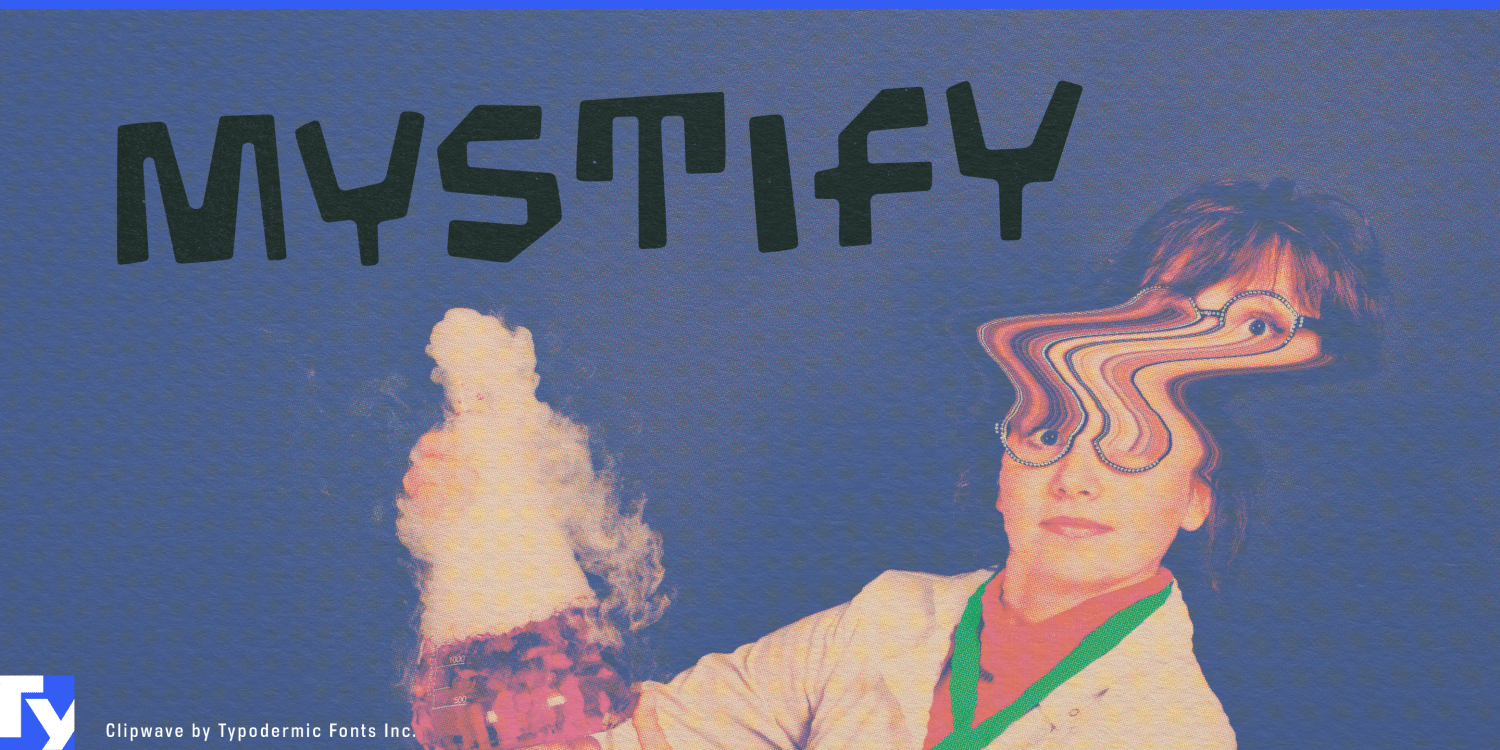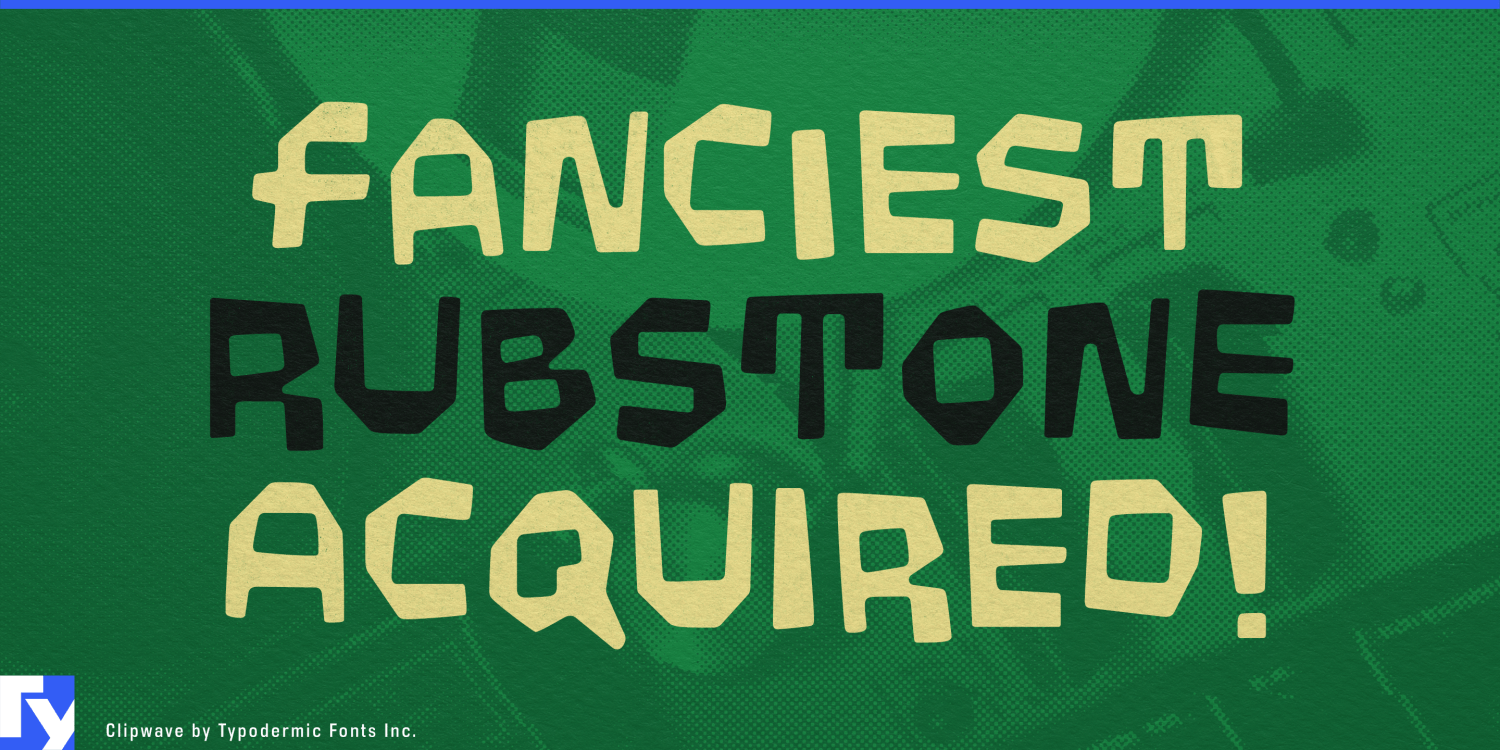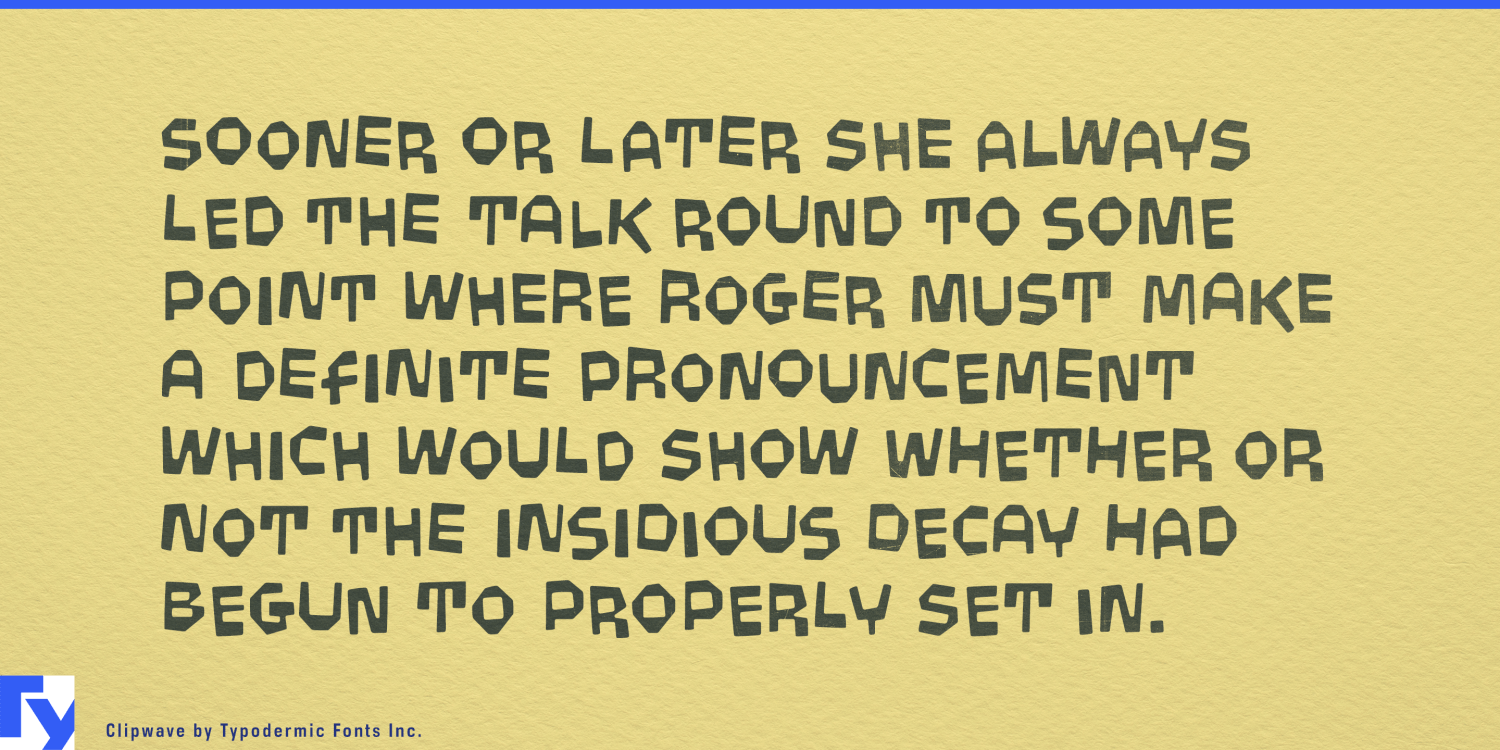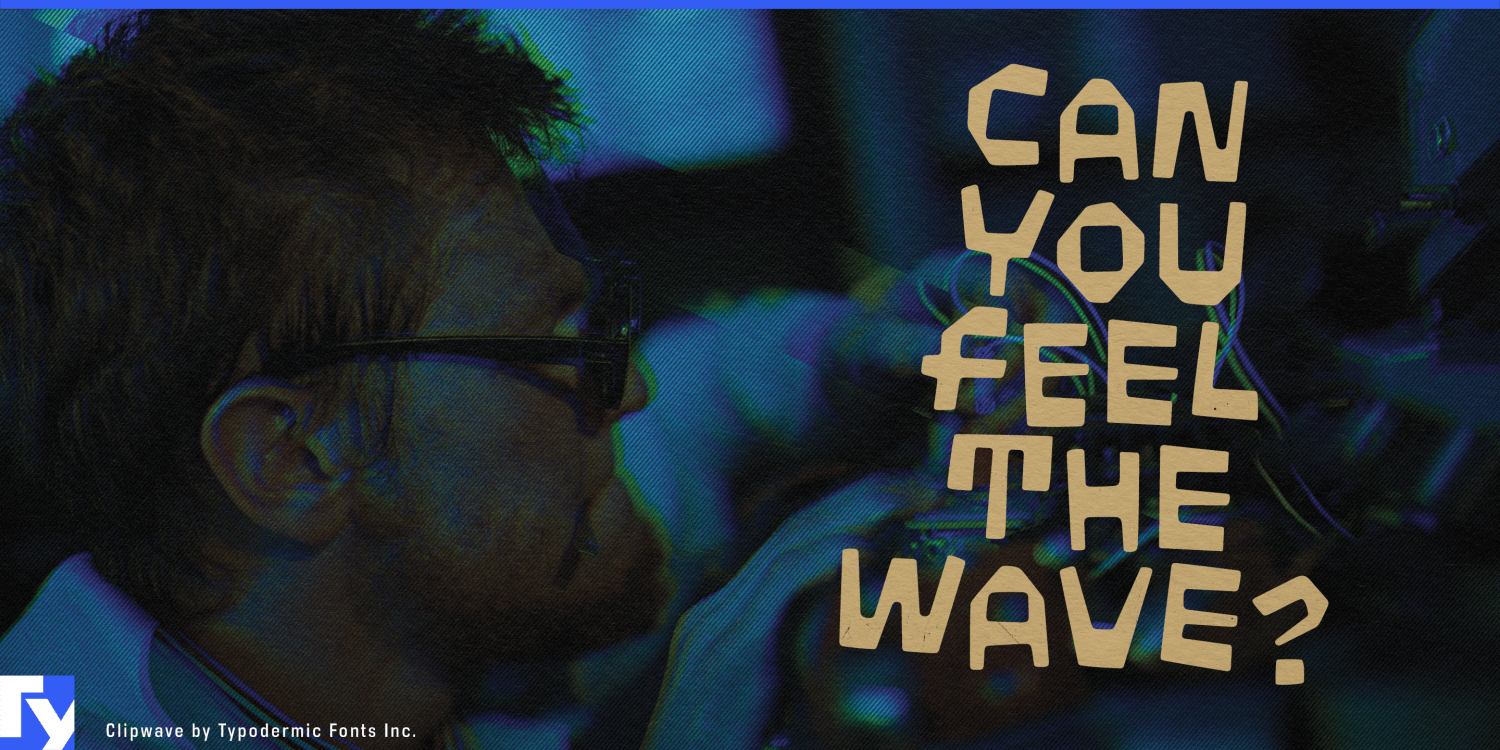
About Clipwave
Clip into the future with Clipwave, a typeface that defies convention and electrifies the senses. This isn’t just a font—it’s a visual revolution, fusing laser-trace letterforms with the unexpected charm of robot floor cleaner tracking…